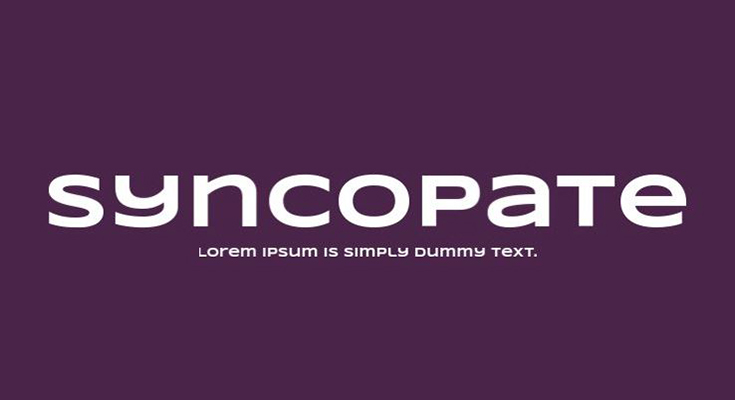
Syncopate Font is a free sans-serif typeface featuring a modern and stylish design. It has a letter style inspired by classic art deco designs.
In this typeface, the traditional lowercase x-height is abandoned and a single uppercase letter height governs the design of all alpha and numeric glyphs.
And some uppercase letters are transcribed into their lowercase counterparts, while other lowercase letters, such as a, e, and r, are raised to uppercase heights.
This display typeface can be found in two different versions including regular and bold. And this typeface was designed and shared by Astigmatic.
It is a great choice for display text, as it’s easy to read. This font style can be used for a variety of design projects. This font style is also useful for printing projects like banners, posters, brochures, magazines, and brochures.